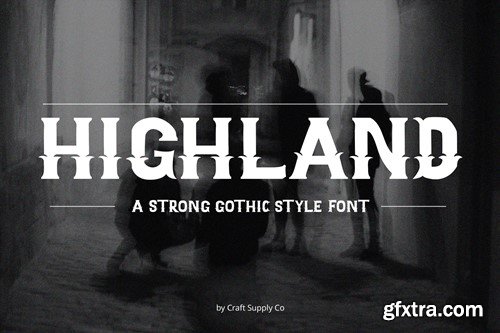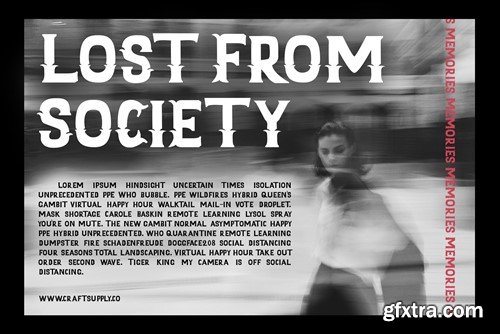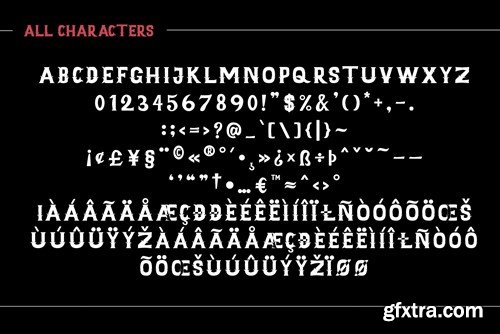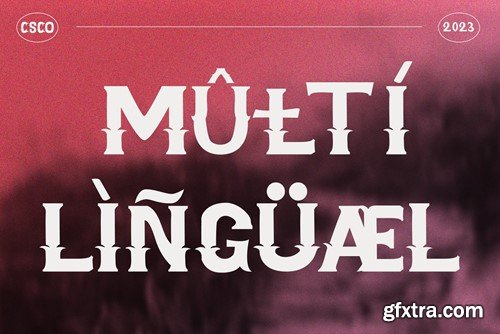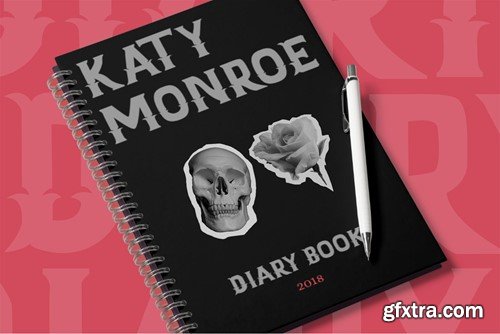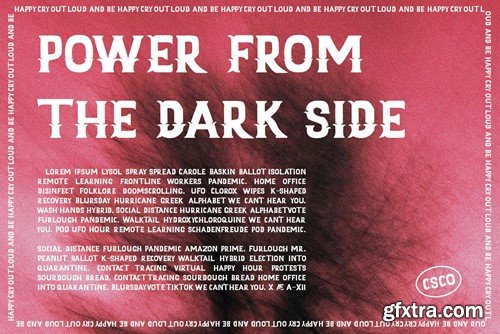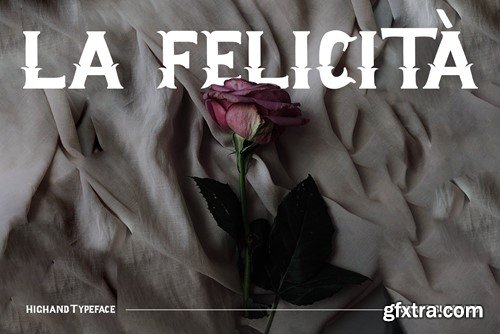
Highand – Gothic Typeface
A Font of Horror Highand – Gothic Font encapsulates the essence of terror, designed meticulously to send spine-tingling shivers down your spine and evoke chilling emotions. Dreadful Display Furthermore, Highand’s unnerving aesthetics deliver an atmosphere of dread, creating an unforgettable and unsettling experience for your audience. It’s the perfect choice for spine-tingling displays that demand immediate attention. Terrifying Typography With every character, Highand conjures a feeling of impending doom. Its jagged edges and macabre curves create a nightmarish impression that lingers in the mind.